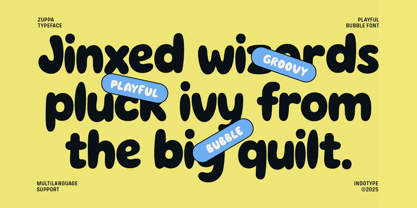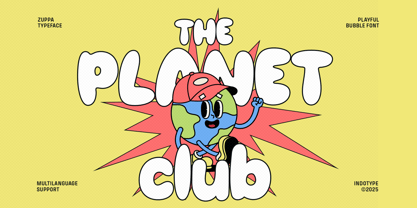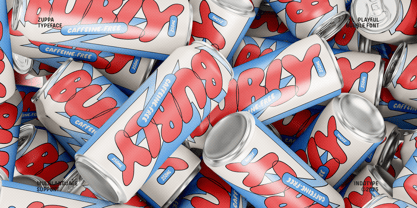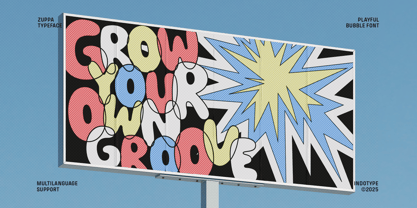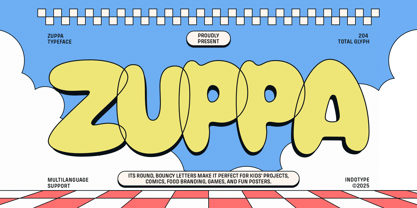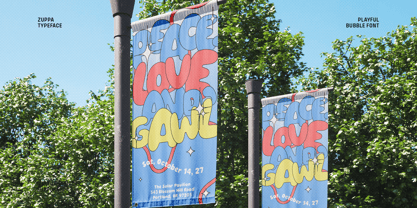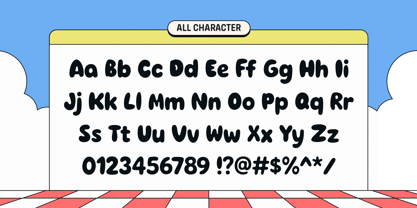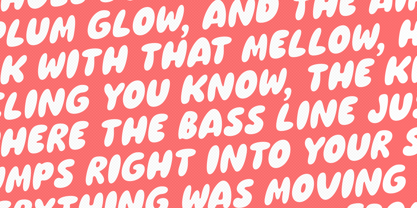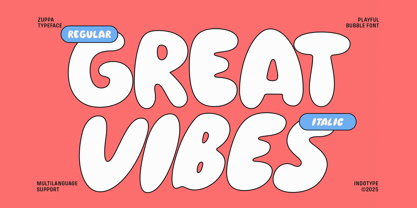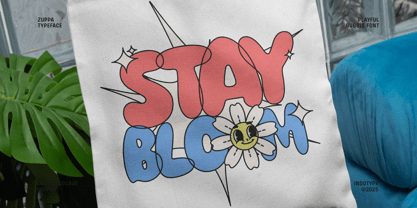
IT Zuppa
von Indotype
Die Schriftfamilie IT Zuppa wurde von Dede Kurniawan entworfen und von Indotype veröffentlicht. IT Zuppa enthält 2 Stile und Familienpaketoptionen. Mehr über diese Familie
Meet Zuppa, a whimsical and irresistible bubble typeface that brings instant joy and energy to any project. Characterized by its perfectly round, bouncy letters and friendly curves, Zuppa radiates a cheerful, approachable personality that’s impossible to ignore. Its design captures the spirit of playfulness, making every word look like it’s about to bounce right off the page. With 204 total glyphs and comprehensive multilanguage support, Zuppa is as versatile as it is fun. It’s the perfect choice for children’s books, animated comics, playful food and beverage branding, casual game interfaces, and vibrant posters. Inject a dose of pure delight into your designs with Zuppa—the font that proves typography can be seriously fun. • Ideal for: Children’s Media, Comic Books, Food & Beverage Branding, Game Design, Party Invitations, Playful Logos, Social Media Graphics. • Classification: Display, Bubble, Rounded, Playful, Comic. • Attributes: Cheerful, Friendly, Energetic, Whimsical, Approachable, Fun, Bouncy.